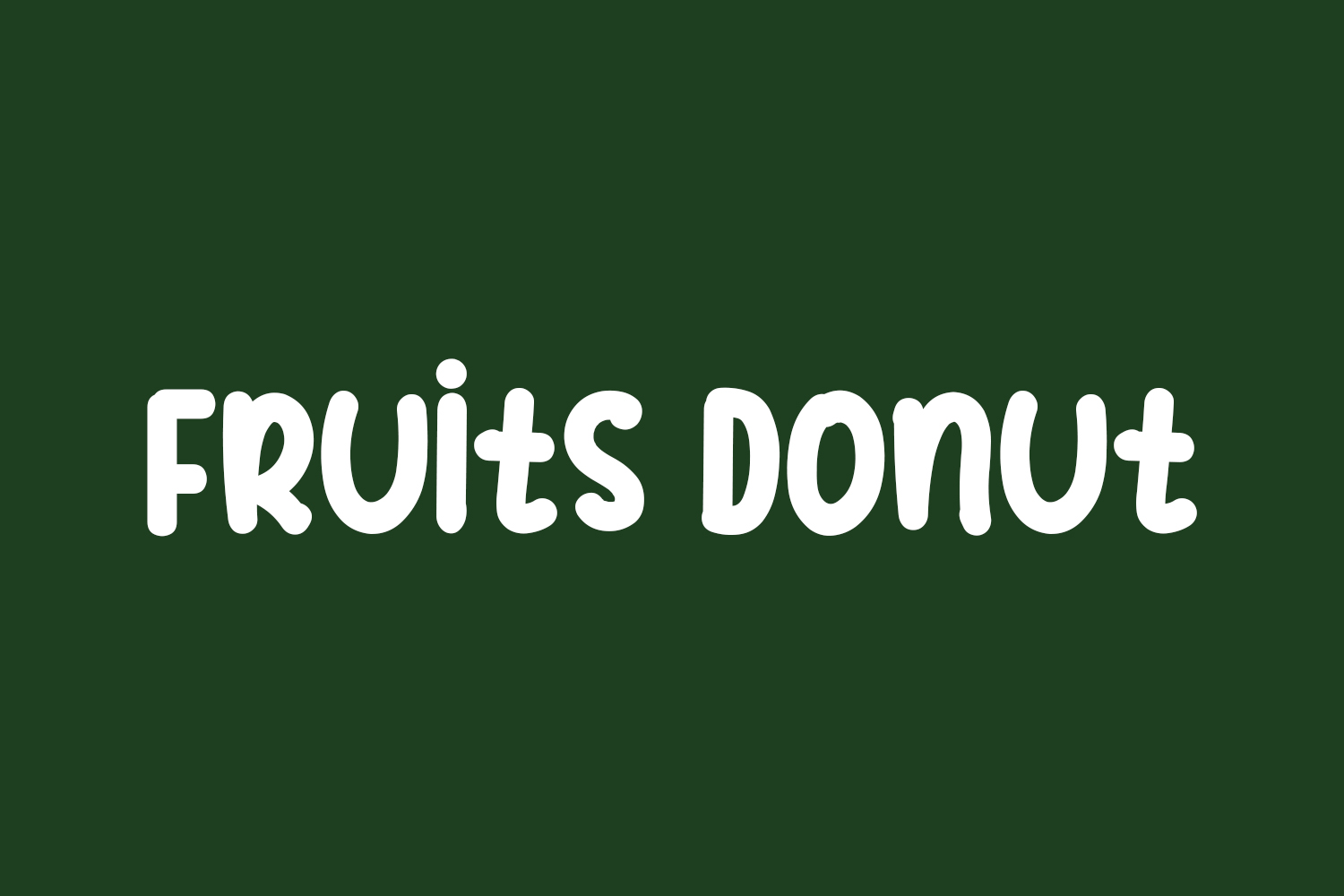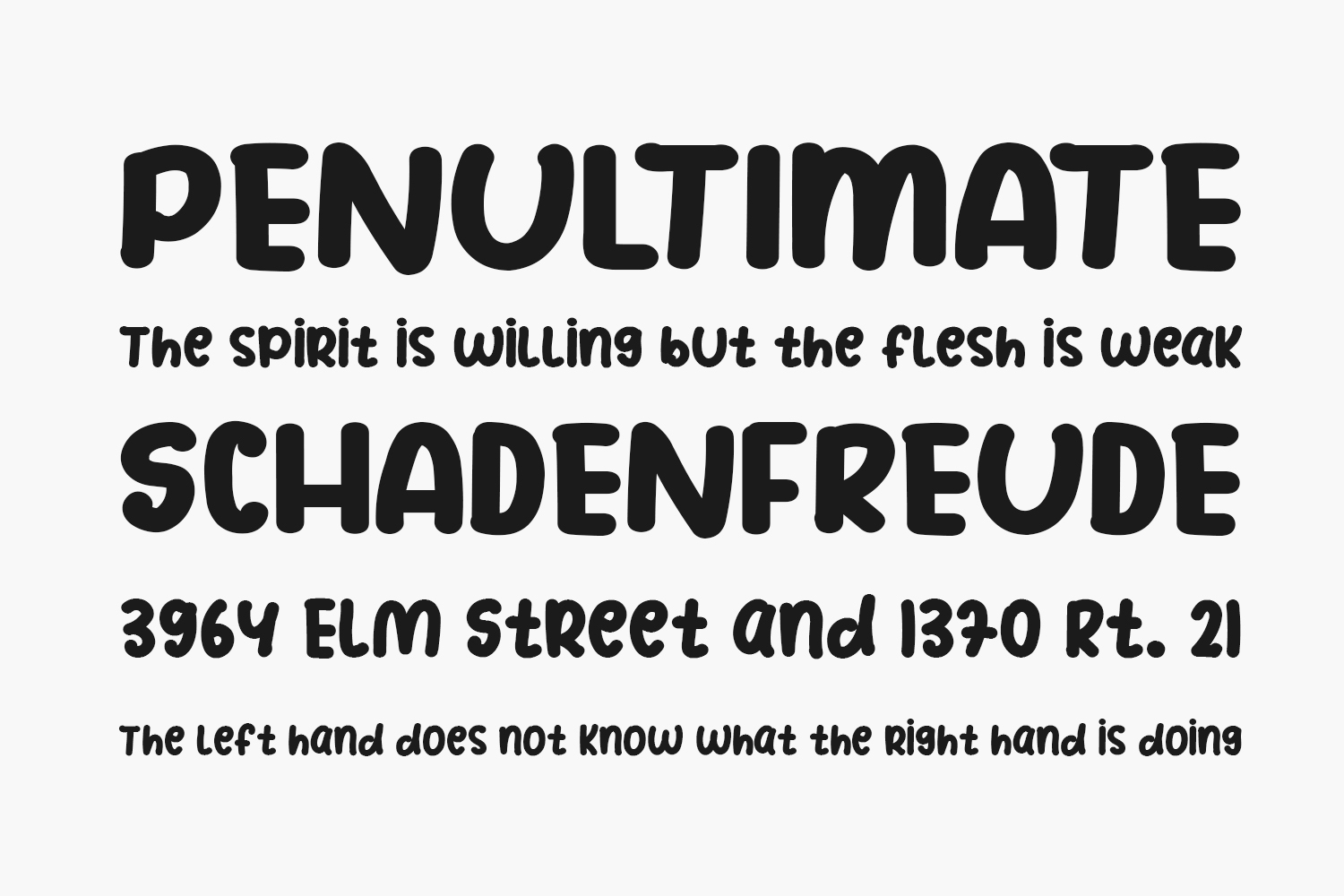
Fruits Donut Free Font is a display font with a cute and playful appearance. This will be an extraordinary font when combined with bright and colorful ideas. And it is very suitable for cartoon designs, children’s toy branding, and children’s themed designs will be more amazing when combined with bright colors.